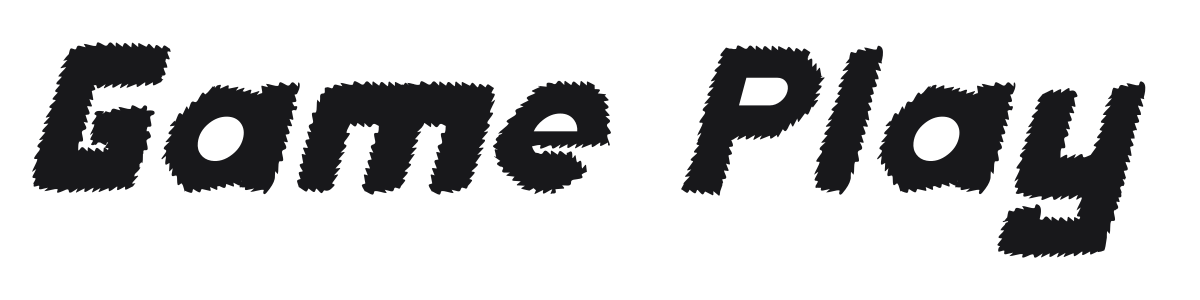
Game Play
Game Play is a bold italic display sans with a rough, eroded texture that gives every letter a worn, high-energy edge. The wide chunky forms lean hard to the right, projecting speed and attitude. At home on game titles, streetwear graphics, and anything that needs to feel kinetic.